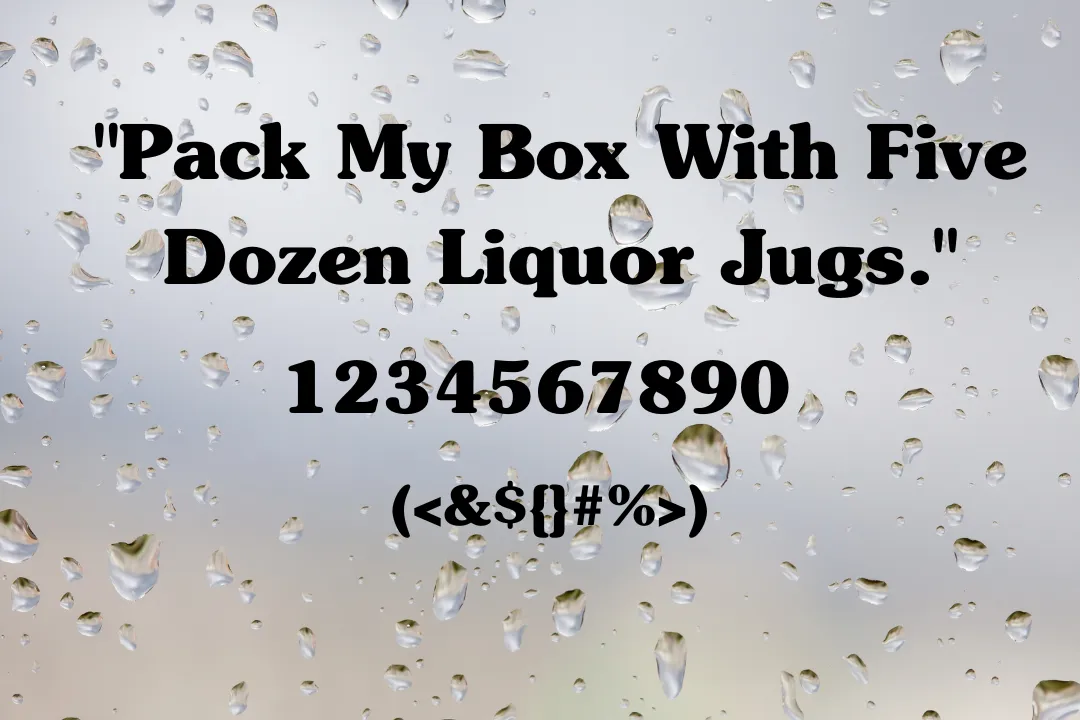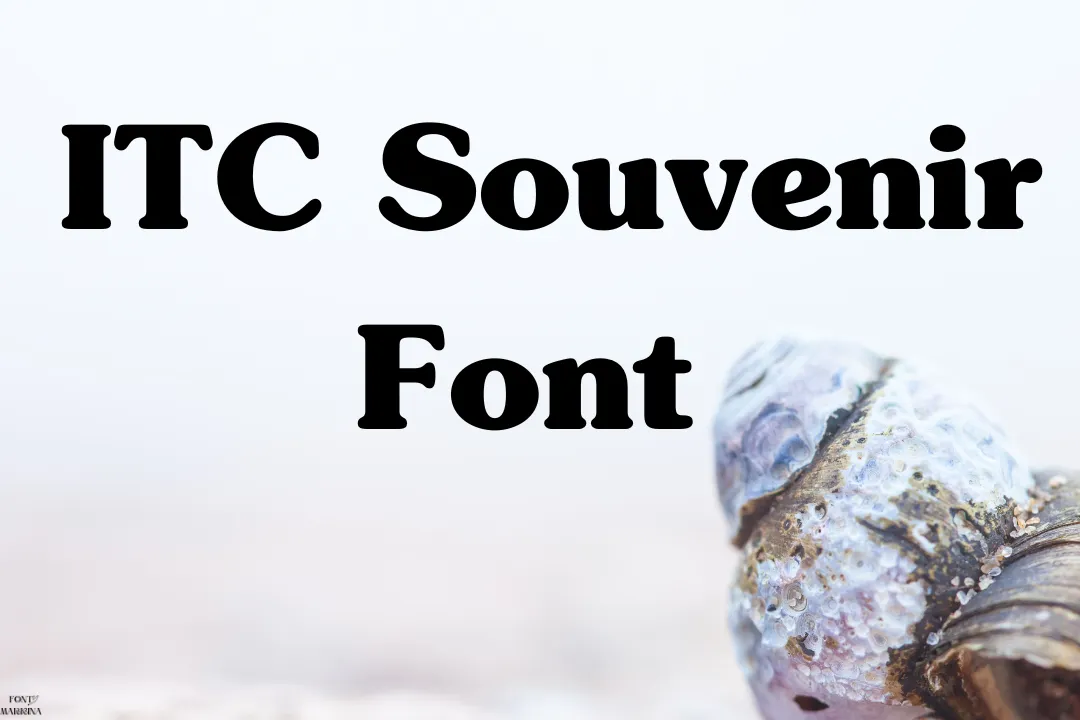
Here, we present a modern and basic Serif typography that is known under the name ITC Souvenir Font. Morris Fuller Benton is the main and original creator of this font family. This typography is classified as the classification of the Serif family of fonts. Finally, after a lot of hard work, this typography was designed in the year 1914.
Some most popular and attractive styles of this typography are Bold, Light, Demi, and Medium. In the case of textual designs, it is best practice for all of you to use its copy-and-paste function. Belda font is alternative to this family in different ways and angles.
Who Can Use ITC Souvenir Font
It depends on the typeface feature, and it is very amazing that because of the more advanced and classic features at the current time this font is used in a bunch of design fields and projects. Also, for Adobe Photoshop you can utilize this family of fonts according to your needs and desire.
Even, in graphics cards, billboards, and emblems. covers, all of these can be designed by using this typography. Especially this family is used for the trademark of Monotype ITC Inc. In Directories the use of this typography is common.
What Type of Font Is ITC Souvenir?
This typography lies in the classification of the serif family and it has very advanced eight styles, 4 weights, and classic strokes.